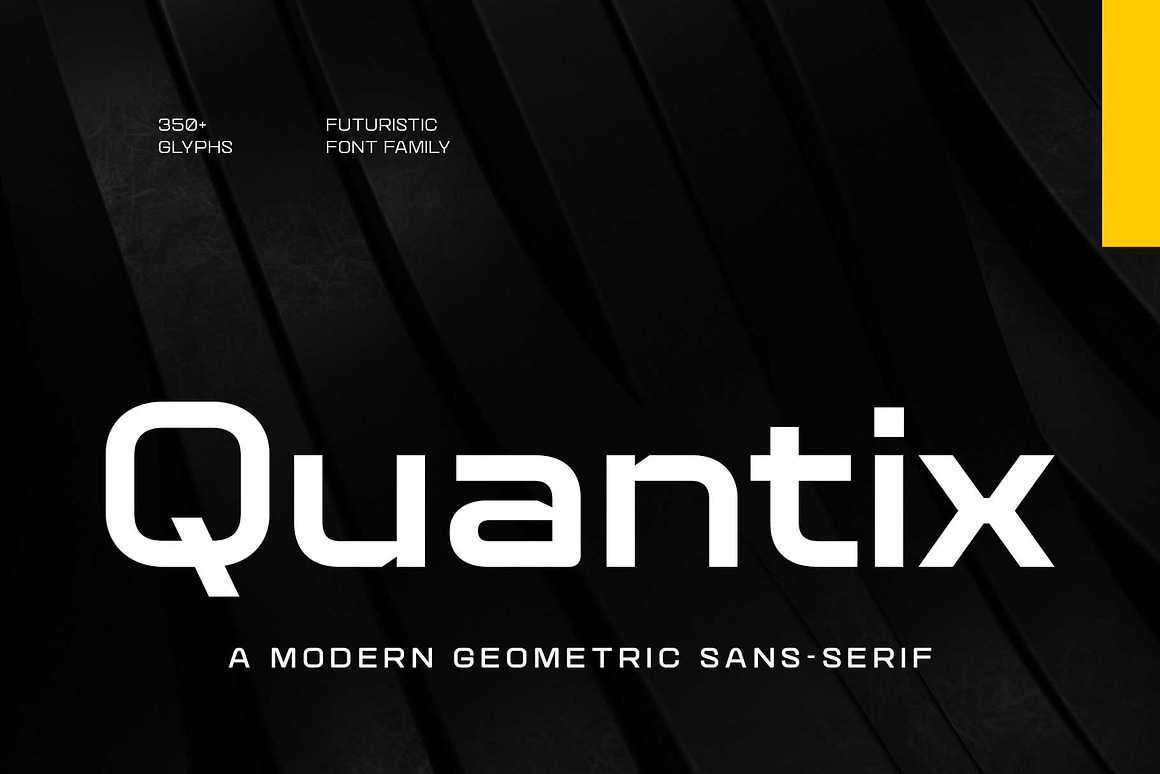
Quantix Font
About Quantix
Quantix is a futuristic sans-serif typeface designed with wide and squarish proportions. Available in 7 weights, it elevates techno-futuristic and sporty designs alike. Perfectly suited for logos, branding, signage, product interfaces, small text, editorials, posters, website and etc.